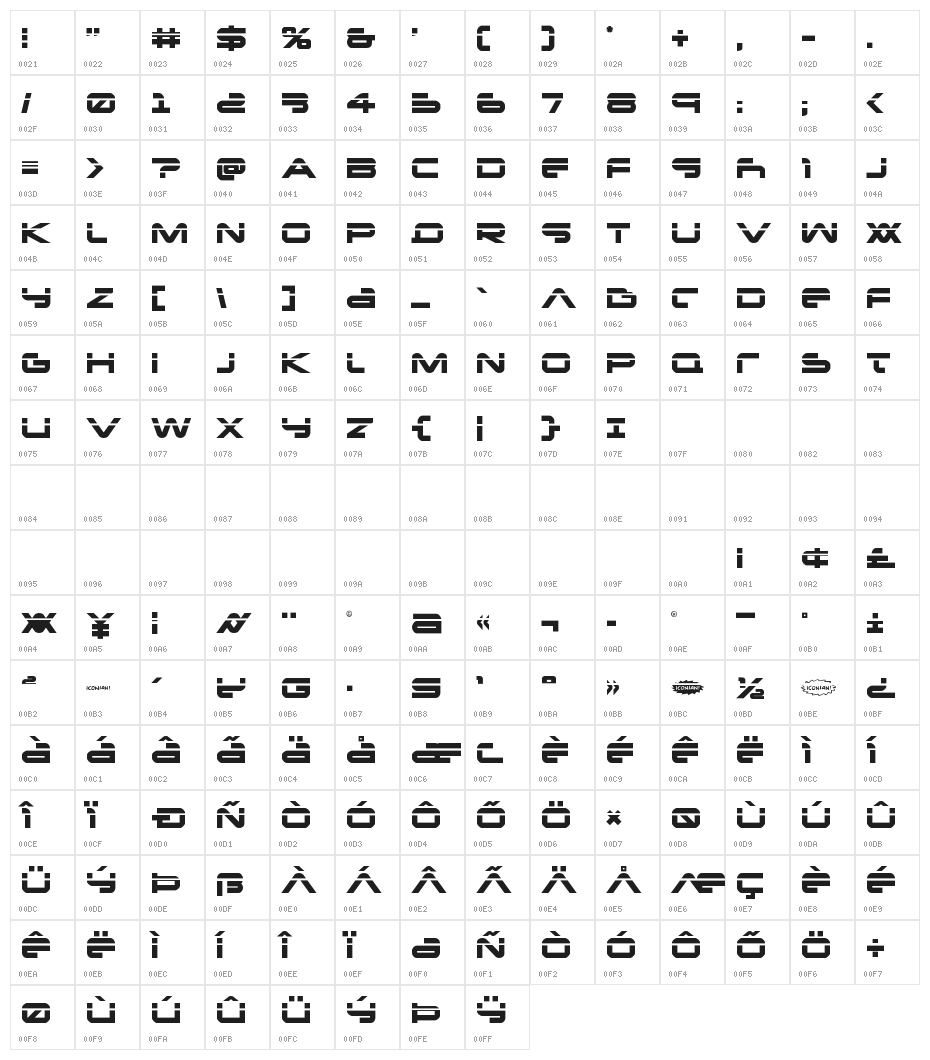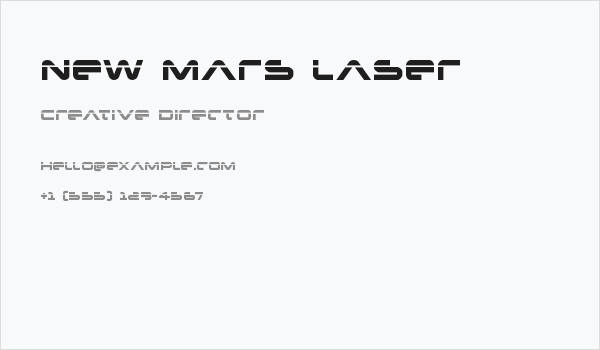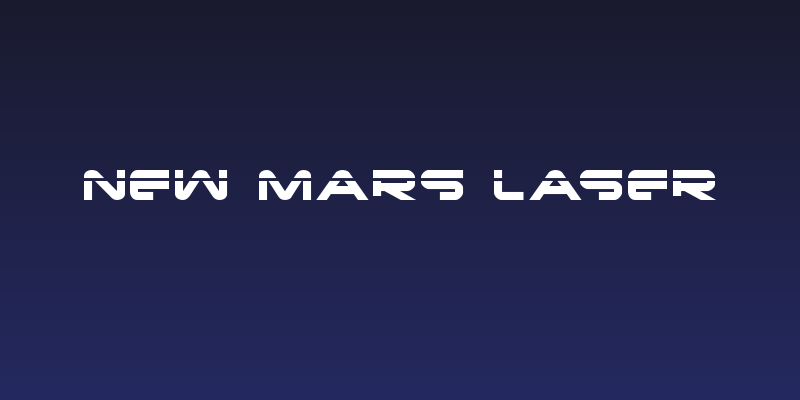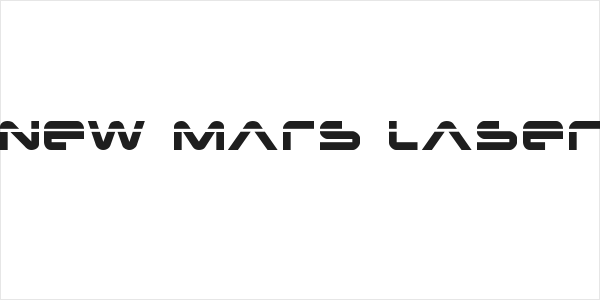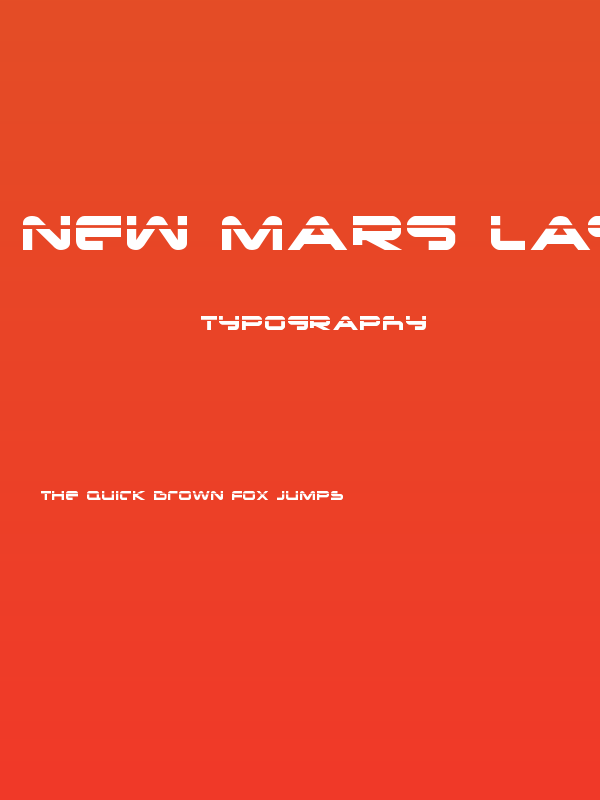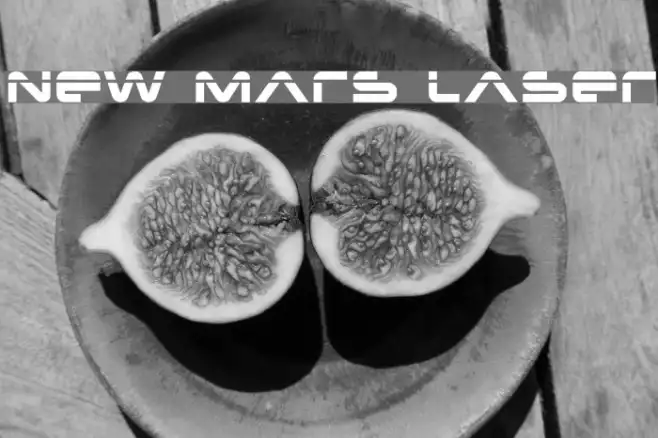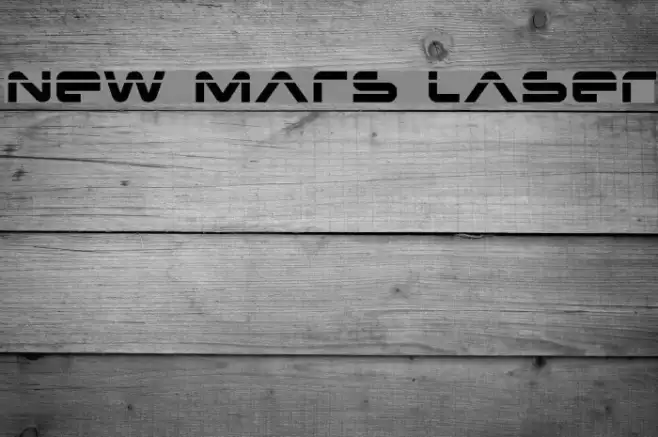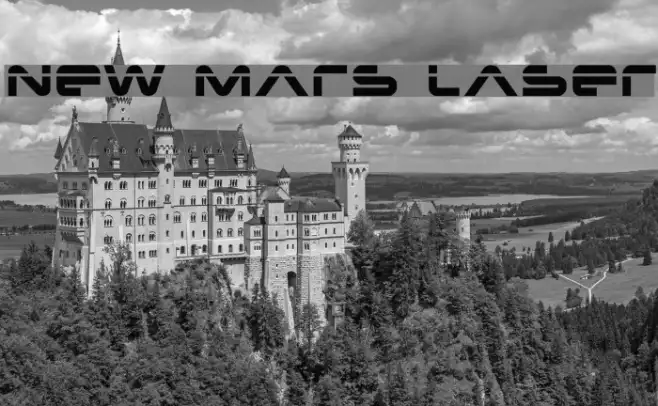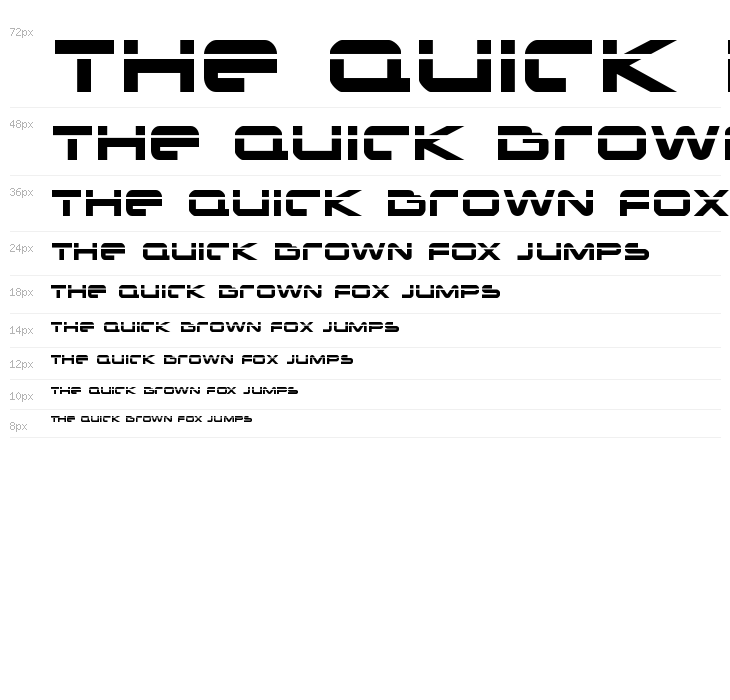
New Mars Laser Font
New Mars Laser Description
This font features a futuristic and geometric design, characterized by its bold and angular letterforms. The characters are constructed with sharp edges and a distinct cut-out style, giving them a high-tech and modern appearance. The uppercase and lowercase letters maintain a consistent design, with a uniform stroke width that enhances readability while preserving the unique aesthetic. The numerals and special characters follow the same design principles, ensuring a cohesive look across all glyphs. This font is ideal for projects that require a contemporary and innovative feel.
| Proposed Projects | Ideal for sci-fi themed designs, technology branding, video game interfaces, and futuristic posters. |